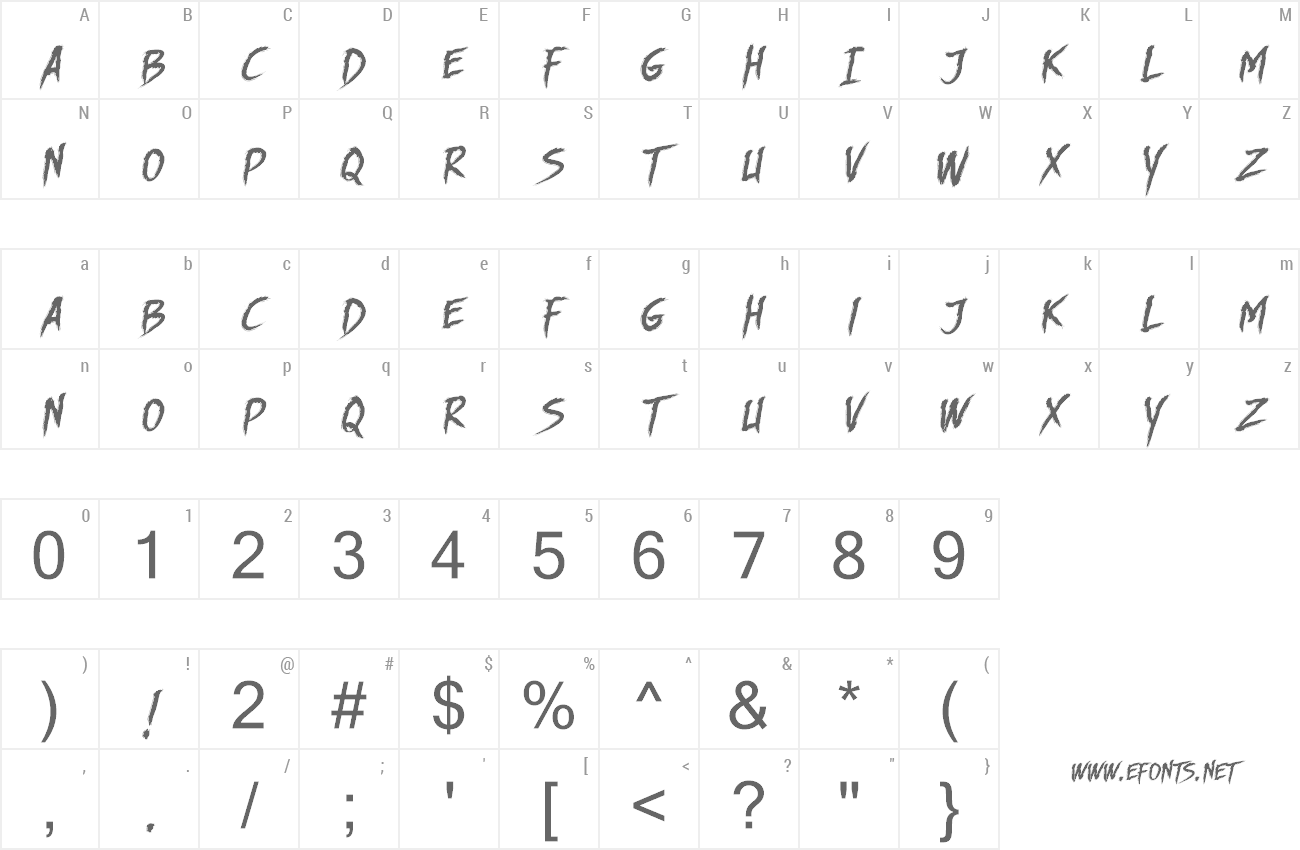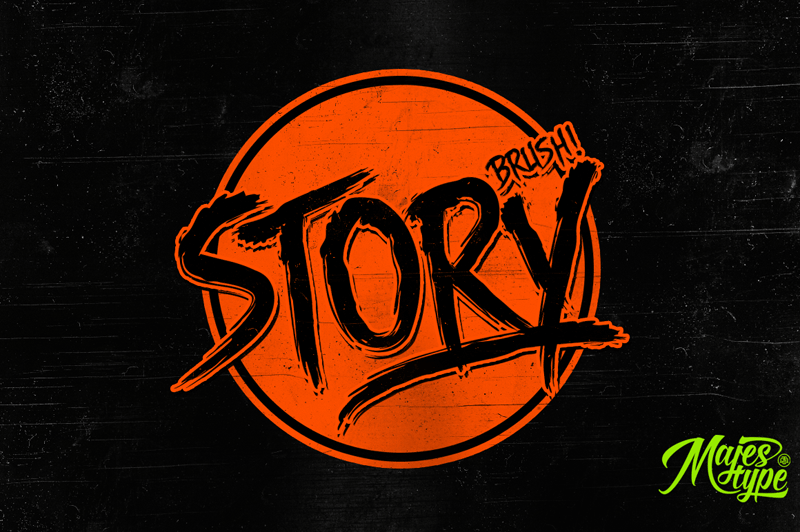
Preview and download DHF Story Brush Font. Created by Dexsar Harry Anugrah in Fancy Horror styles with Free for personal use license.
STORY BRUSH is the high detailed brush font that has over 240 glyphs. Coming with 2 Verison Reguler and slanted. This font is equipped with OpenType feature for make custom feel for your design. This font is designed for t-shirts design, logos, horror design, grunge & etc. LICENSE: Personal Use ONLY! Any Donation I Always Appreciate! Question? Feel free to contact me http://majestype.com/contact Purchase full font & License → majestype.com/portfolio/story-brush-2/ Like my Facebook Page → http://www.facebook.com/majestype Thanks! |